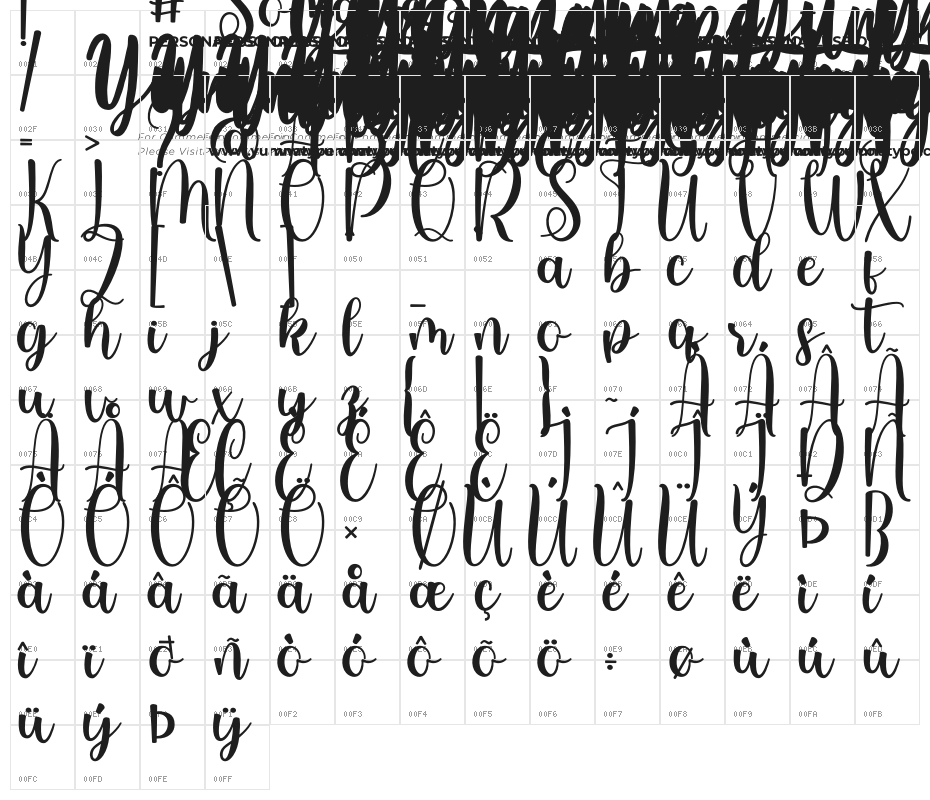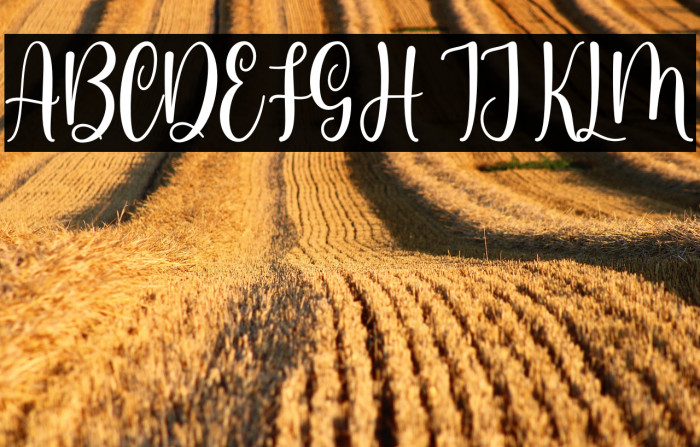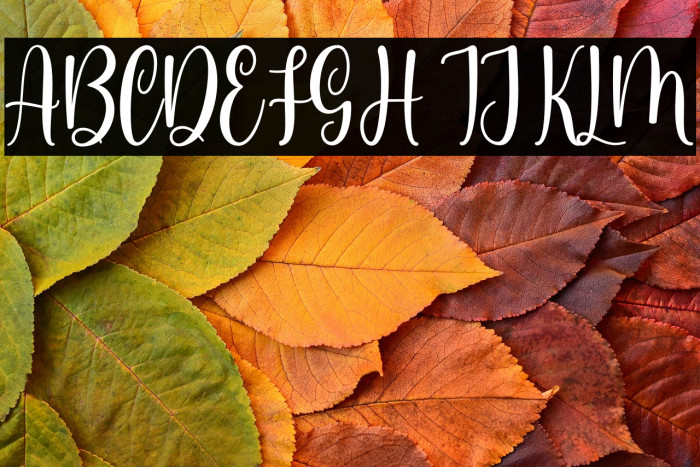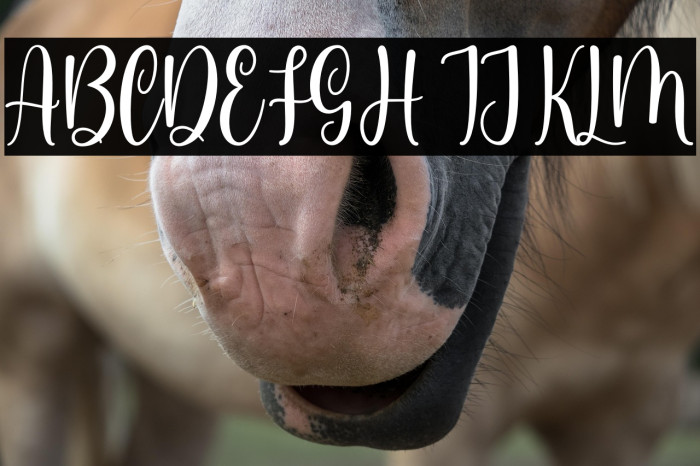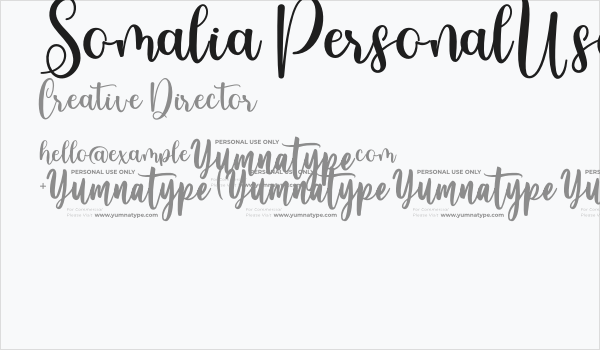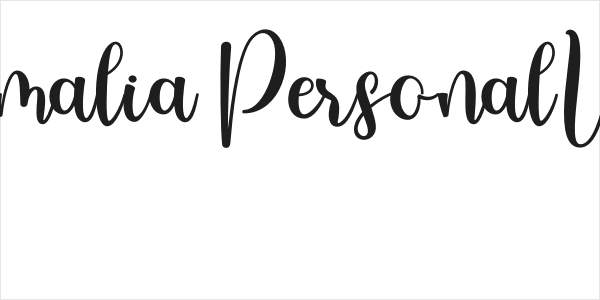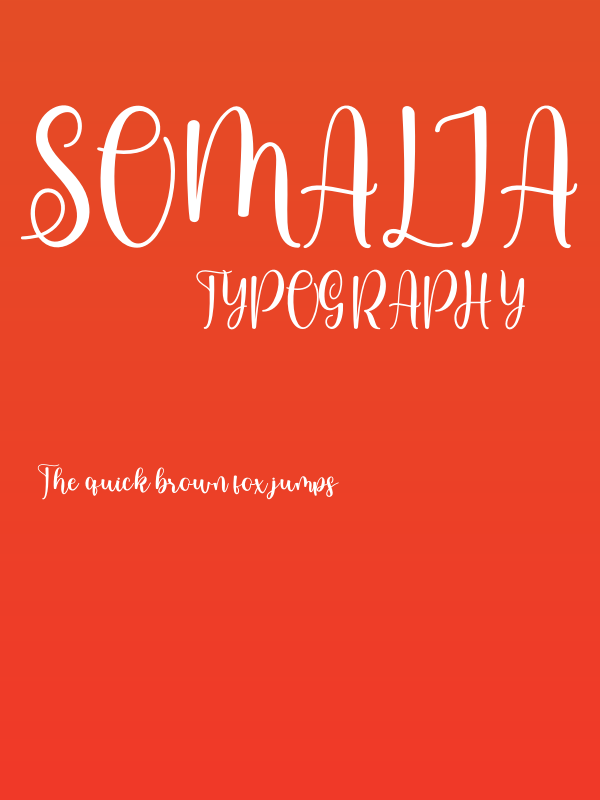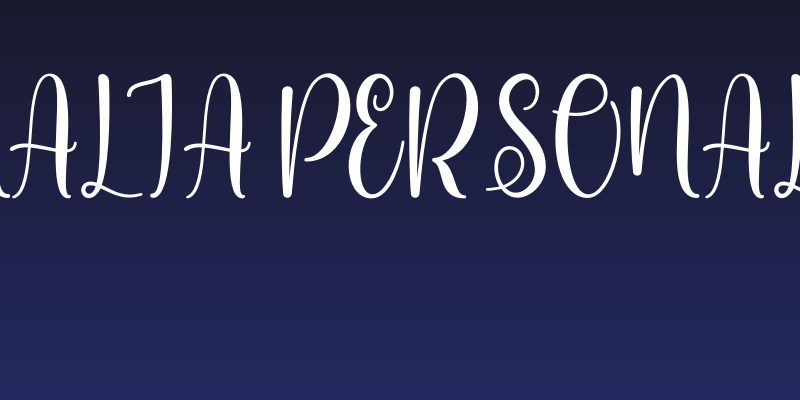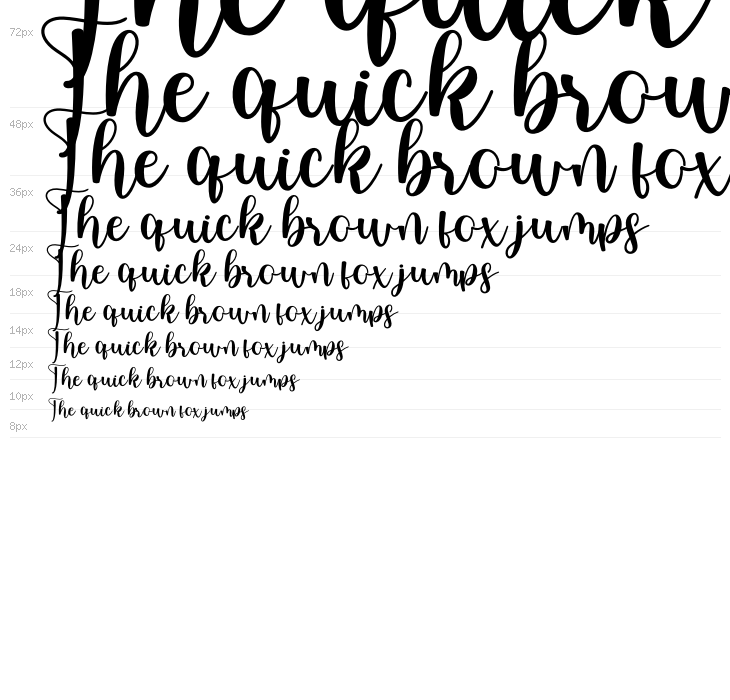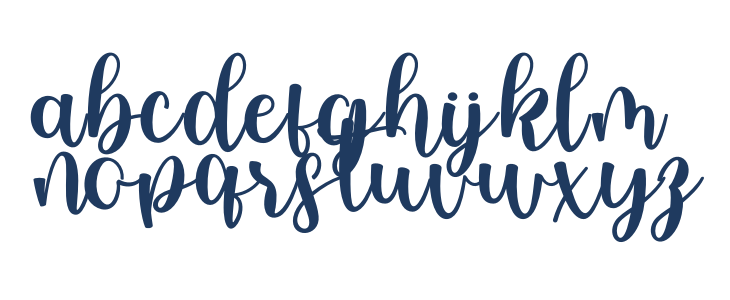
Somalia Personal Use Font
Somalia Personal Use Description
This font features a lively and expressive script style with a modern flair. The uppercase letters are tall and elegant, with a slight slant and decorative loops that add a touch of sophistication. The lowercase letters are bold and flowing, maintaining a consistent rhythm throughout. The strokes are thick, providing a strong presence, while the curves and loops give it a playful and artistic feel. This font is ideal for creating eye-catching designs that require a personal and handcrafted touch. It is versatile enough to be used in various creative projects, from invitations to branding materials.